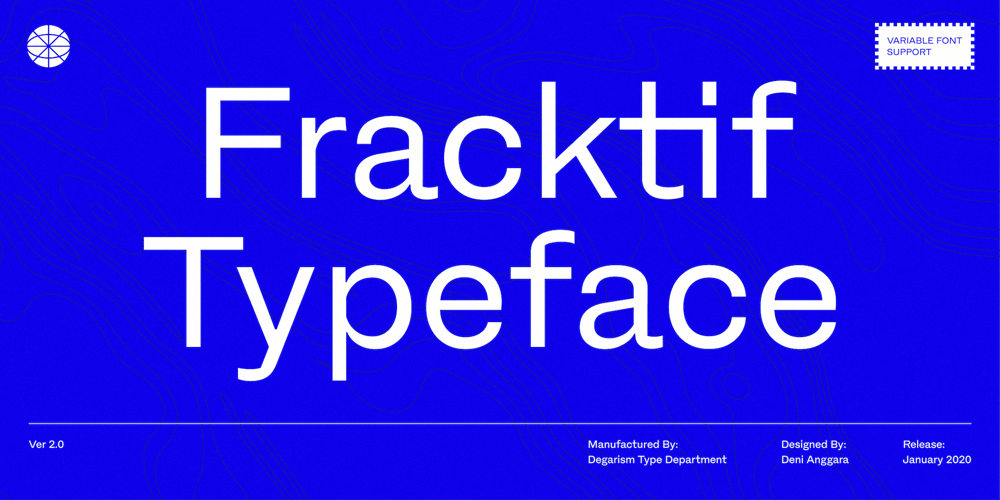
Fracktif Font Family was designed by Deni Anggara and published by Degarism Studio. Fracktif contains 17 styles and family package options. NEW UPDATE Ver 2.0 Now is support font Variable with 2 axes (Weigh + Italic)+ Adding selected Emoji Fracktif typeface is a modern Grotesk, Reveals a strong constructivist identity with classic type character proportions. Inspired by the historical German classic Grotesk designed by Genzsch & Heyse in 1874. Fracktif develops with simplicity in mind and refers to radical shapes by combining with calligraphic contrast logic there are many distinctive letters with clear modernist roots and a strongly contemporary finish, They were solid designs, suitable for advertisements, titles, and posters.Fracktif typeface family consists of 7 weight plus matching italics, Designed with powerful OpenType features such as alternate characters, Standard ligatures, discretionary ligature, case-sensitive forms, fractions, super- and subscriptLanguage Support: anguages Support: Afrikaans, Albanian, Arapaho, Alsatian, Aragonese, Aromanian, Arrernte, Asturian, Asu, Aymara, Basque, Belarusian (lacinka), Bislama, Bemba-lang., Bena, Bokmål, Bosnian, Breton, Catalan, Cebuano, Chamorro, Cheyenne, Cimbrian, Corsican, Chichewa (nyanja), Croatian, Czech, Danish, Demo, Dutch, English, Esperanto, Estonian, Faroese, Finnish, French (creole), Frisian, Fijian, Friulian, Galician, German, Genoese, Gilbertese, Greenlandic, Gusii-lang., Hungarian, Haitian (creole), Hawaiian, Hiligaynon, Hmong, Hopi, Icelandic, Italian, Ibanag, Iloko (ilokano), Indonesian, Interglossa (glosa), Interlingua, Irish (gaelic), Istro-romanian, Jerriais, Kashubian, Kurdish (kurmanji), Latinbasic, Latvian, Lithuanian, Ladin, Lojban, Lombard, Low (saxon), Luxembourgeois, Malagasy, Makonde, Maltese, Malay (latinized), Manx, Māori, Megleno (romanian), Mohawk, Morisyen, Norwegian, Nahuatl, Norfolk (pitcairnese), Northern (sotho), North-Ndebele-lang., Occitan, Oromo, Pare, Polish, Portuguese, Pangasinan, Papiamento, Piedmontese, Potawatomi, Quechua, Romanian, Rhaeto-romance, Romansh, Rombo, Rotokas, Rukiga, Rundi, Rwa, Rwandan, Sami (lule), Samoan, Serbian, Slovak, Slovenian, Spanish, Sardinian, Scots (gaelic), Sena, Seychelles (creole), Shona, Sicilian, Somali, Soga, Southern (ndebele), Southern (sotho), Swahili, Swati (swazi), Turkish, Tagalog (filipino), Taita, Tahitian, Tausug, Teso, Tetum, Tok (pisin), Tongan, Tswana, Turkmen (latinized), Tuvaluan, Ubasic, Uyghur (latinized), Volapuk, Veps, Votic (latinized), Vunjo, Walliser German, Walloon, Warlpiri, Xhosa, Yapese, Zulu.